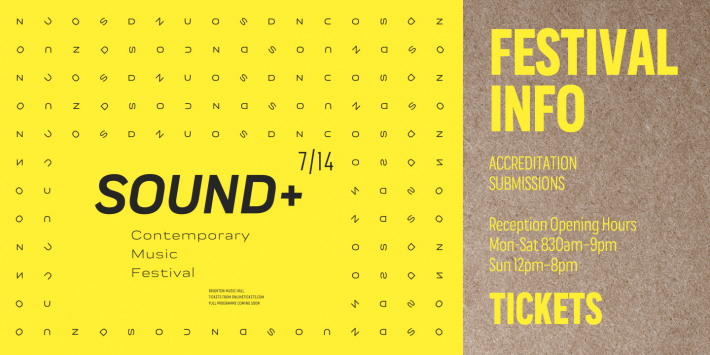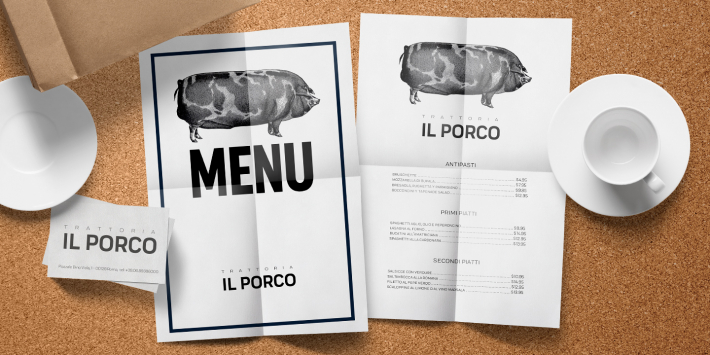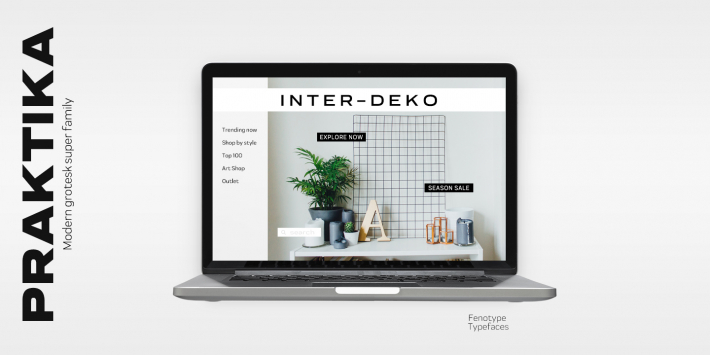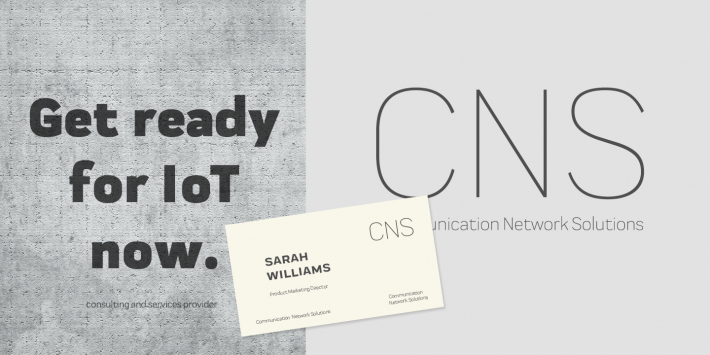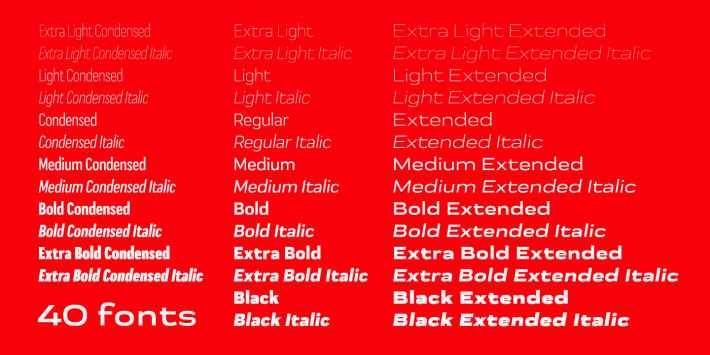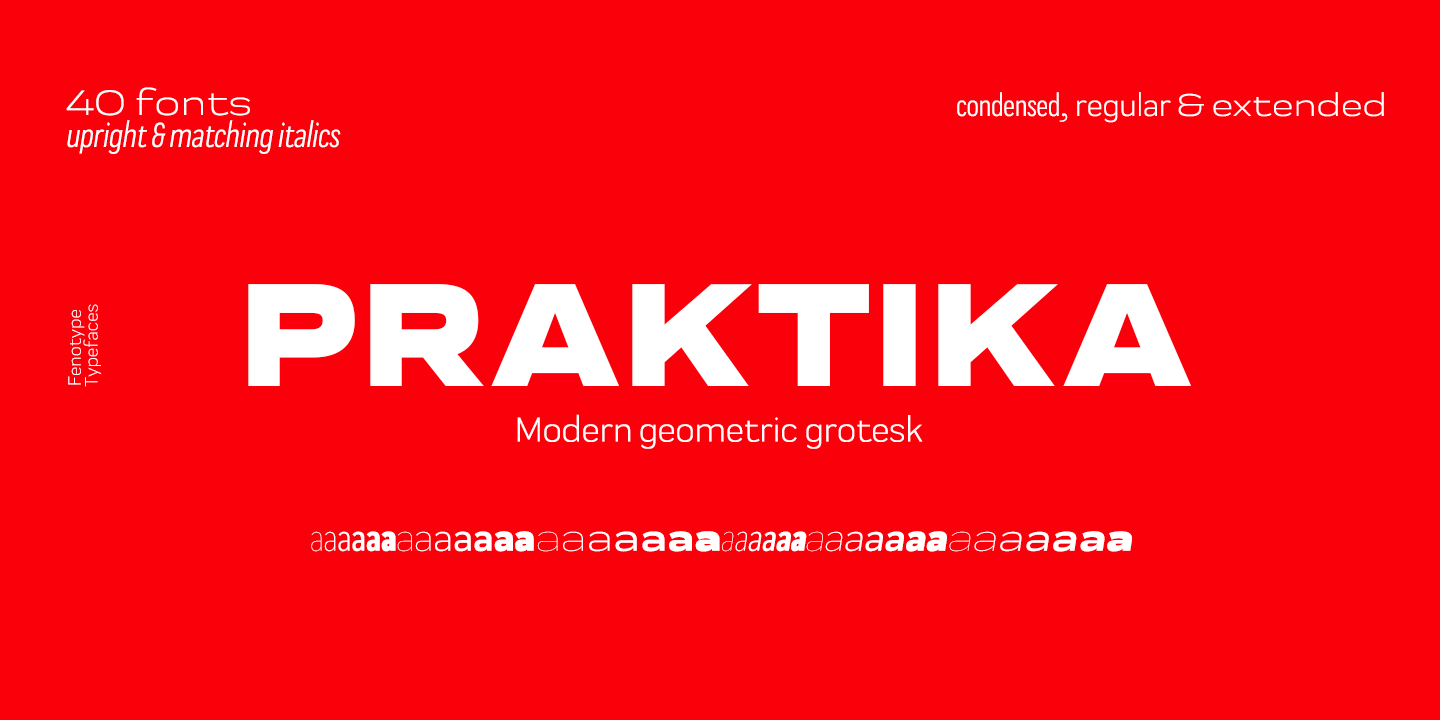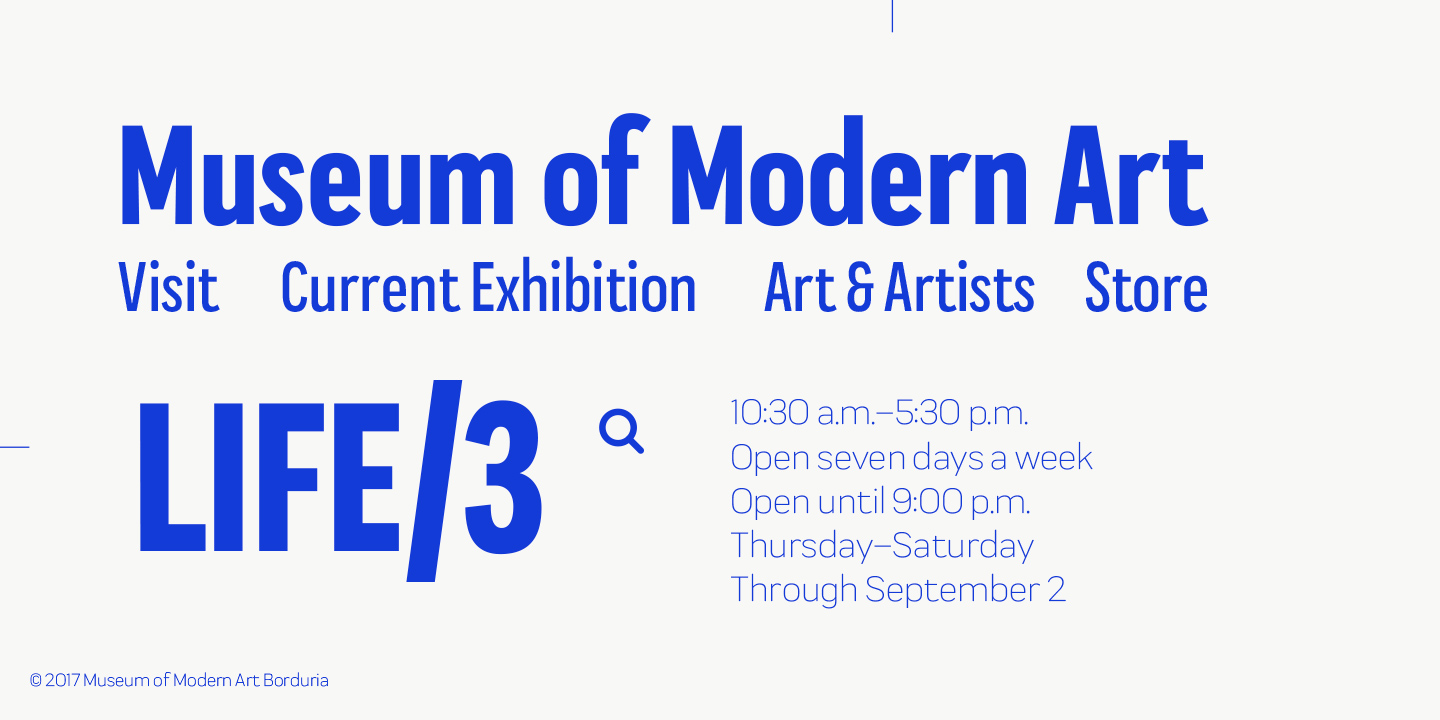
• Built-in small capitals
• Both lining and old style numerals, in tabular or proportional form
• Superscript and subscript numerals
• Many alternate characters
Classification: | Sans Serif | |